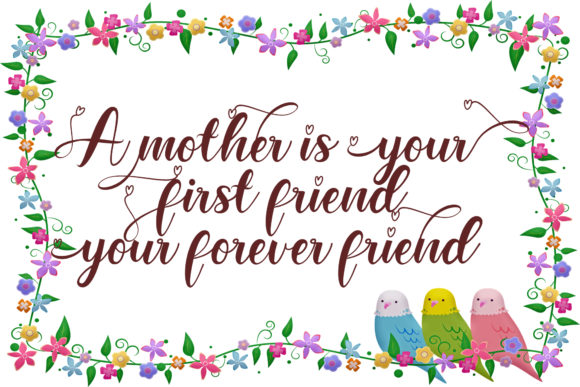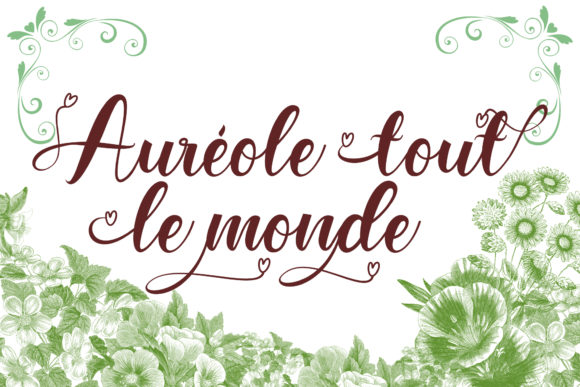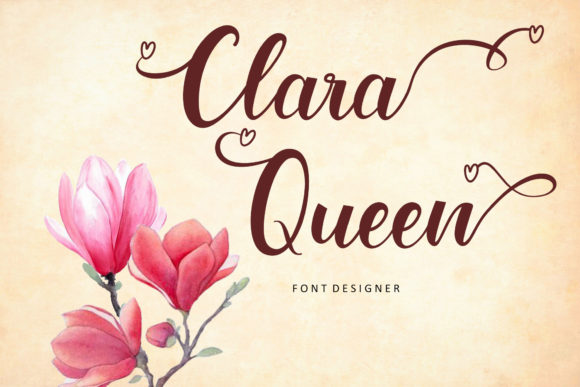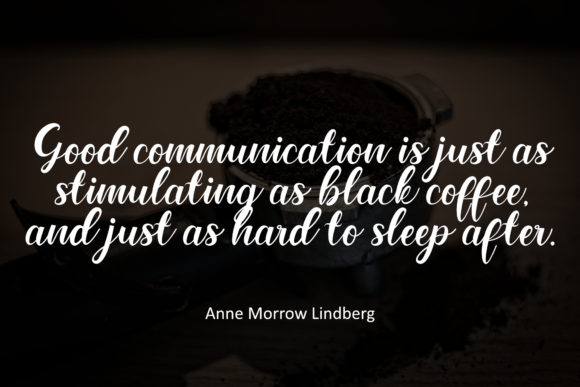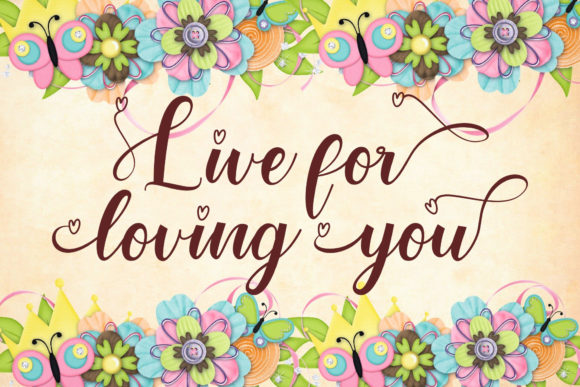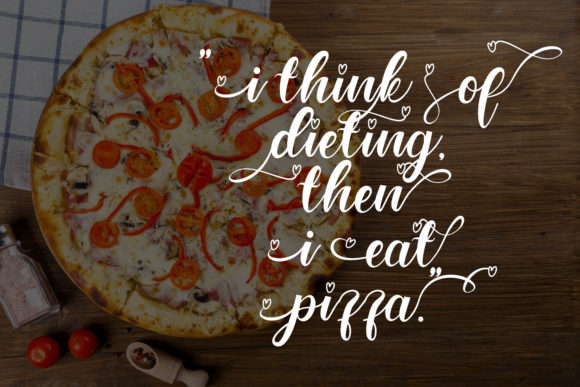
Introduction to La Madre Font
Do you remember the moment when the perfect font just clicked into place, elevating your design from good to great? For designers, this feeling is like a symphony of creativity and precision. La Madre Font is one of those magical design resources that can transport your projects to new heights.
This exquisite handwritten font is a masterclass in blending classic calligraphic influences with a fresh, contemporary feel. Its PUA encoding ensures seamless access to all glyphs and swashes, making it a valuable addition to any designer’s toolkit. Whether you’re working on a high-quality branding project or a creative endeavor with a transparent background, La Madre Font is sure to impress.
Key Features of La Madre Font
- Each font is meticulously crafted with attention to detail, resulting in a professional and elegant appearance.
- La Madre Font is a versatile design resource, suitable for a wide range of creative projects, from logos and branding to typography and graphics.
Honest Review: La Madre Font
As a designer, I’m always on the lookout for high-quality design resources that can elevate my creative projects. La Madre Font has caught my attention with its stunning collection of fonts, and I’m excited to share my honest review.
- ✨ Elegant and sophisticated design: La Madre Font features a range of stylish fonts that are perfect for adding a touch of luxury to your creative projects.
- ✨ High-quality vector graphics: The fonts are available in high-resolution vector formats, making them perfect for print and digital use.
- ⚠️ Limited font selection: While La Madre Font has a good selection of fonts, it’s not as extensive as some other font libraries.
- ⚠️ No transparent background option: Some of the fonts may not have a transparent background option, which can make it difficult to use them in certain design scenarios.
Overall, I’m impressed with La Madre Font’s design and quality. While it may not be perfect, it’s a great resource for designers who want to add some sophistication to their creative projects. With a little creativity, you can work around the limitations and make the most of this high-quality font library.
La Madre Font is available with a transparent background, making it perfect for use in graphics and design projects where a transparent background is required.